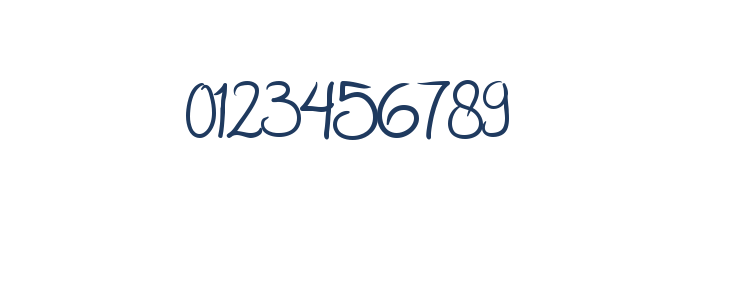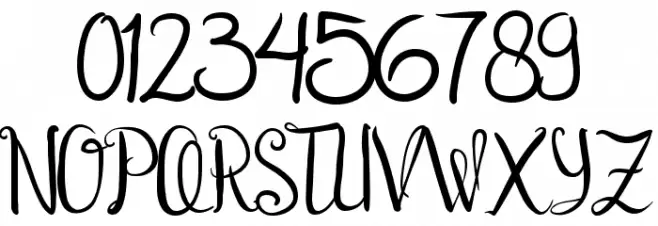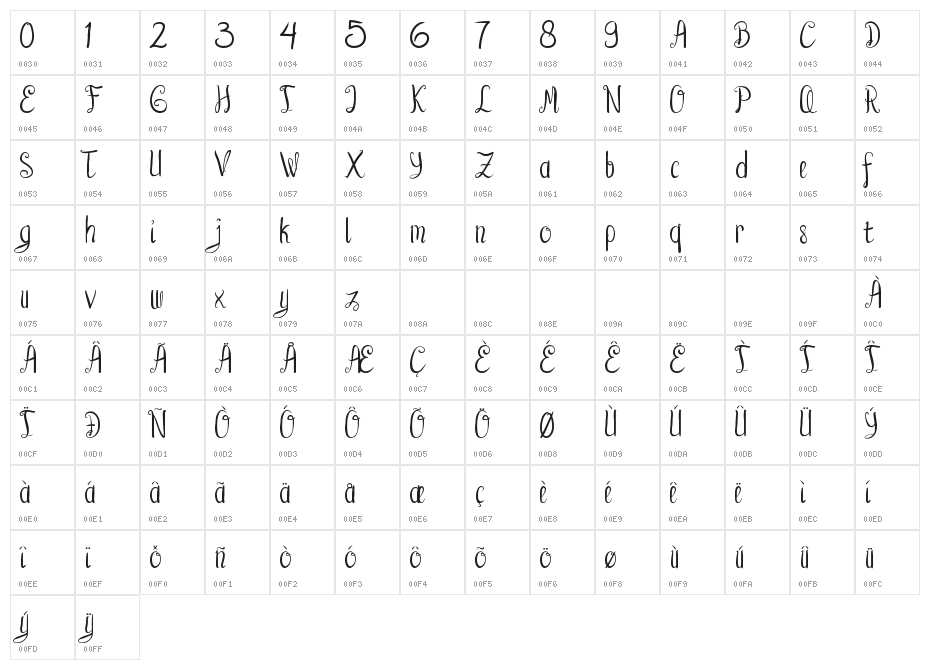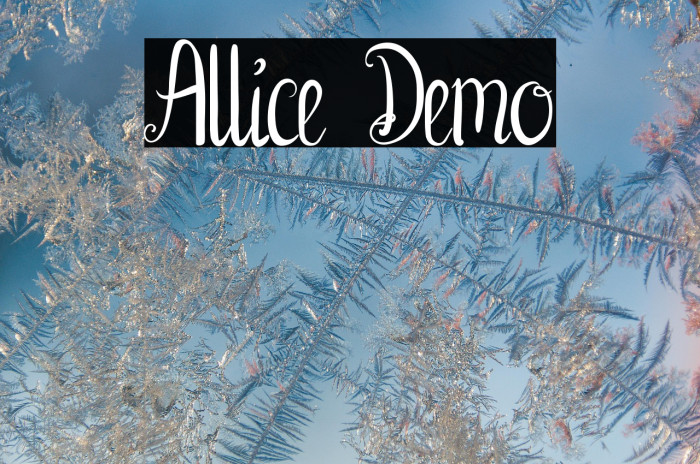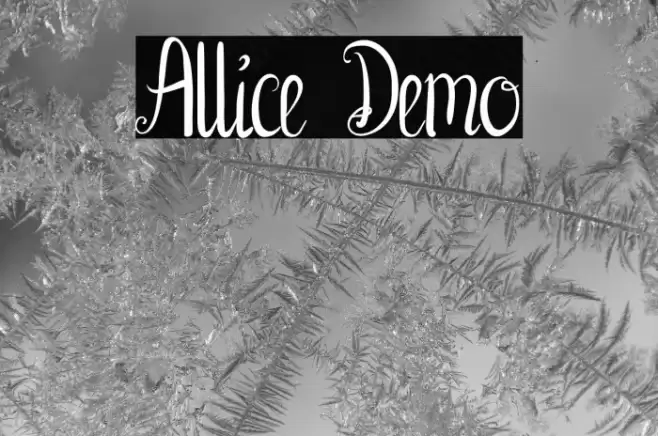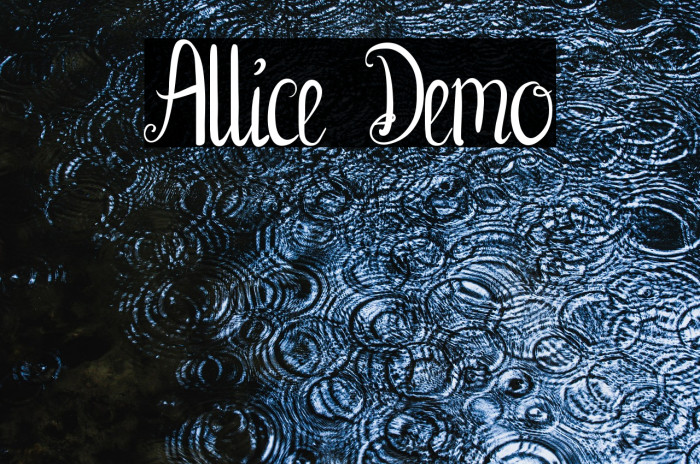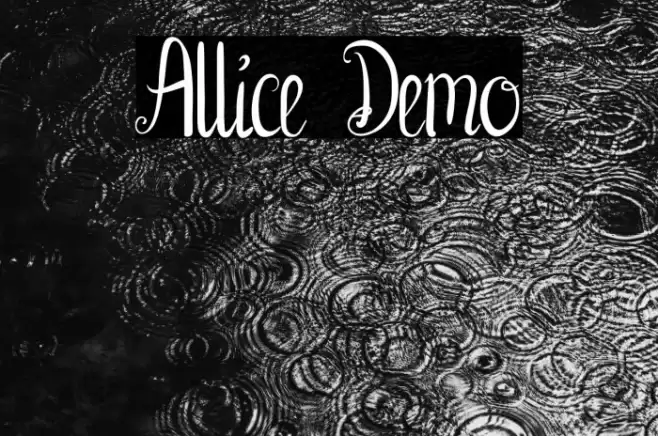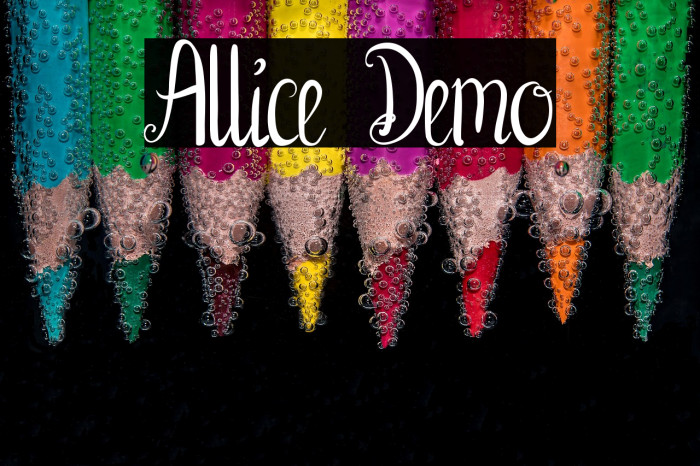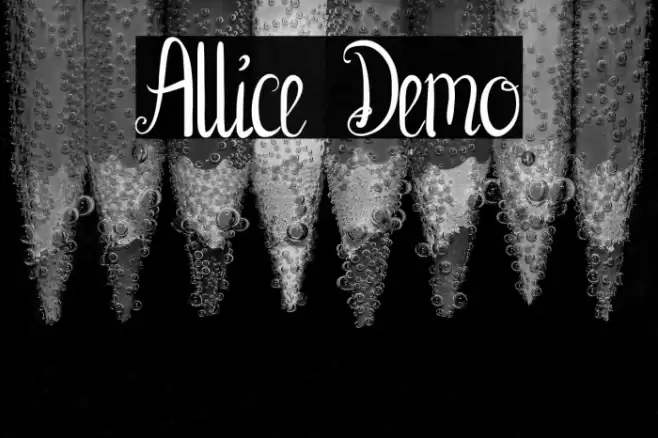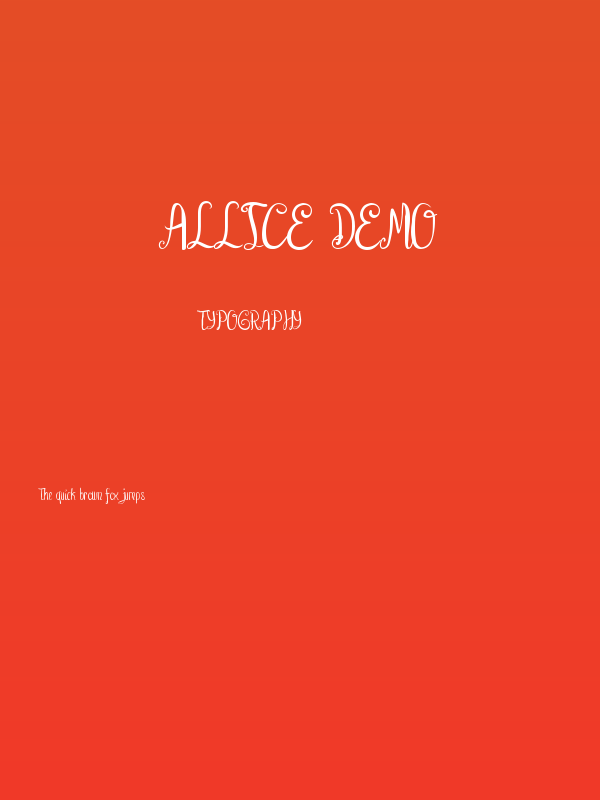
Allice Demo Font
Allice Demo Description
This font features a whimsical and playful script style, characterized by its flowing, curly lines and elegant swirls. The uppercase letters are bold and decorative, with unique flourishes that add a touch of sophistication. The lowercase letters maintain a consistent style, with a slightly narrower form that complements the uppercase. Numbers are designed with the same playful curves, ensuring a cohesive look throughout. Special characters like $?&%!#*= are integrated seamlessly, maintaining the font's overall aesthetic. This font is perfect for projects that require a touch of elegance and creativity.
| Use Case | Logos, Invitations, Decorative Text |
| Proposed Projects | Ideal for wedding invitations, greeting cards, branding, and creative posters. |